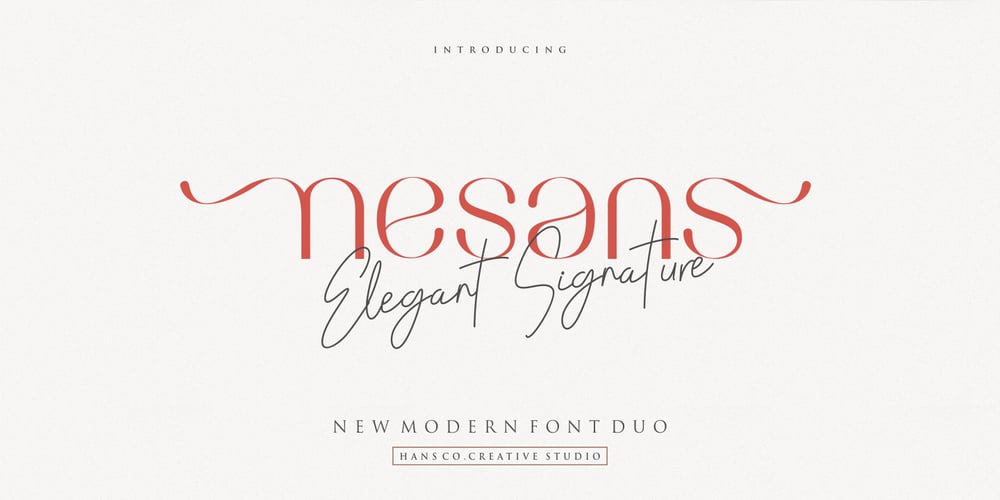
Nesans
Nesans font
Nesans Font Family was designed by Burhan Afif and published by HansCo. Nesans contains 4 styles and family package options. Create something elegant and classy with a modern touch. Nesans Duo Font gives a sleek, elegant look to logos, business cards, wedding invitations, quotes, advertisements, and more. Nesans is a versatile typeface that’s full of character and one you’ll come back to time and again. Create something beautiful today with Nesans. This typeface comes in uppercase and lowercase, with punctuation, symbols, numerals, stylistic alternates and also has multilingual support.Tutorial how to Install & use Alternate / Special Character : https://hanscostudio.com/tutorial/Enjoy!